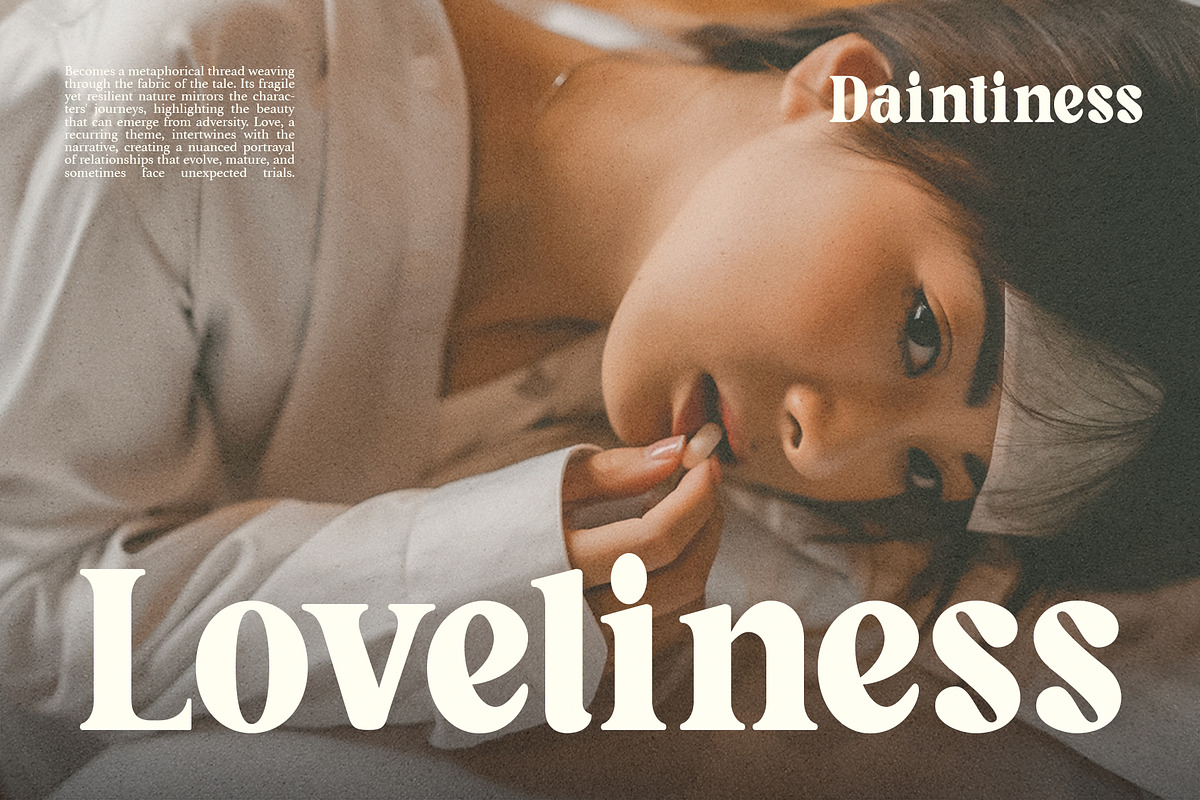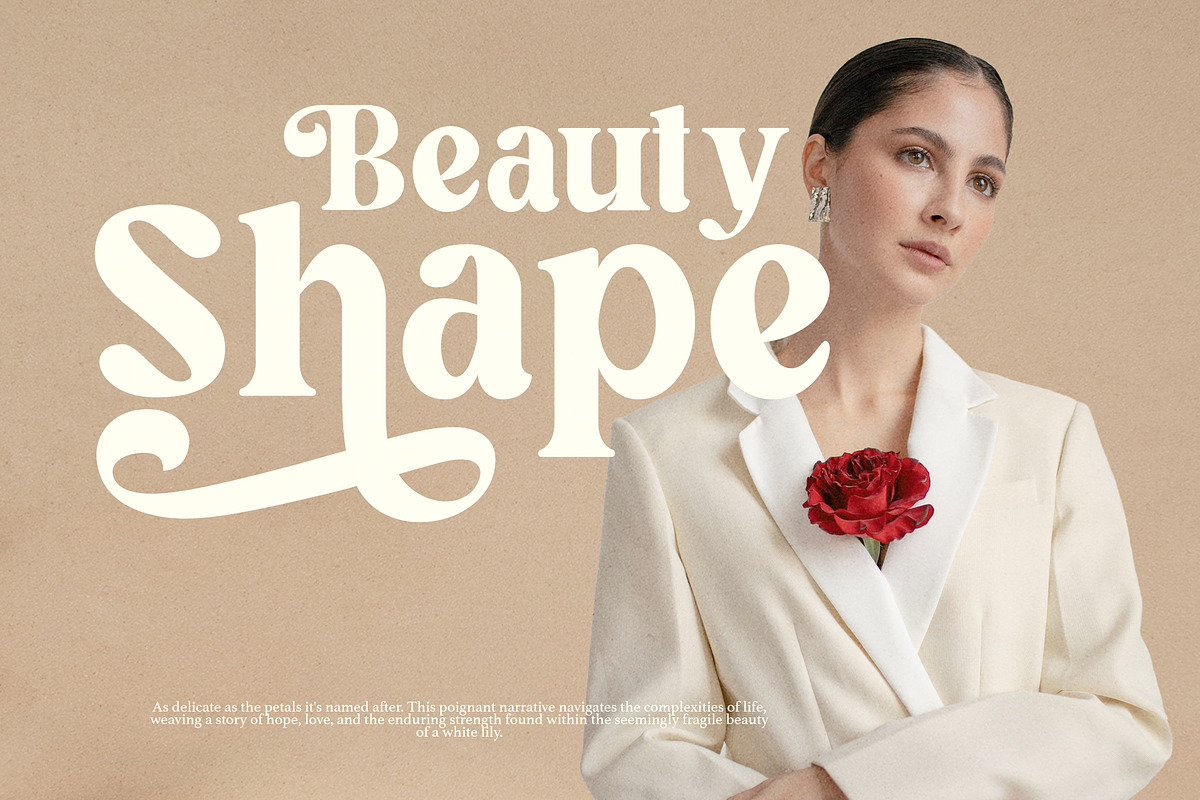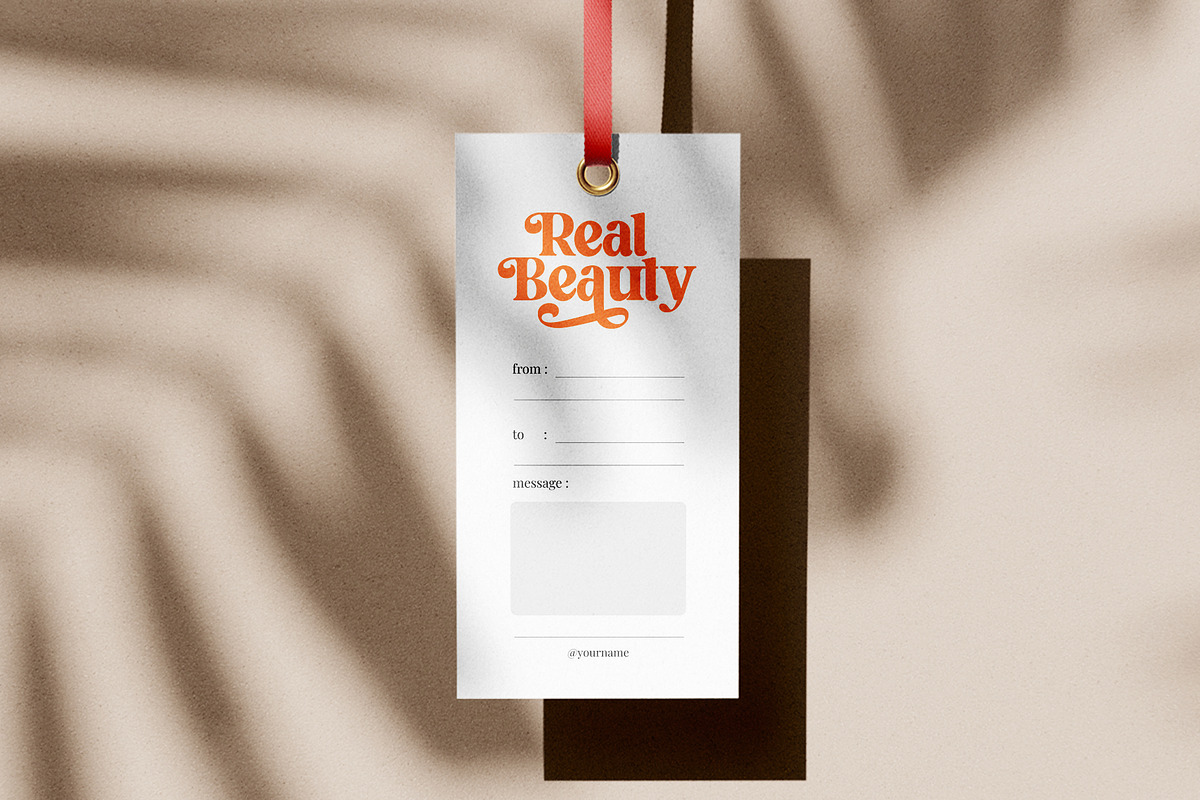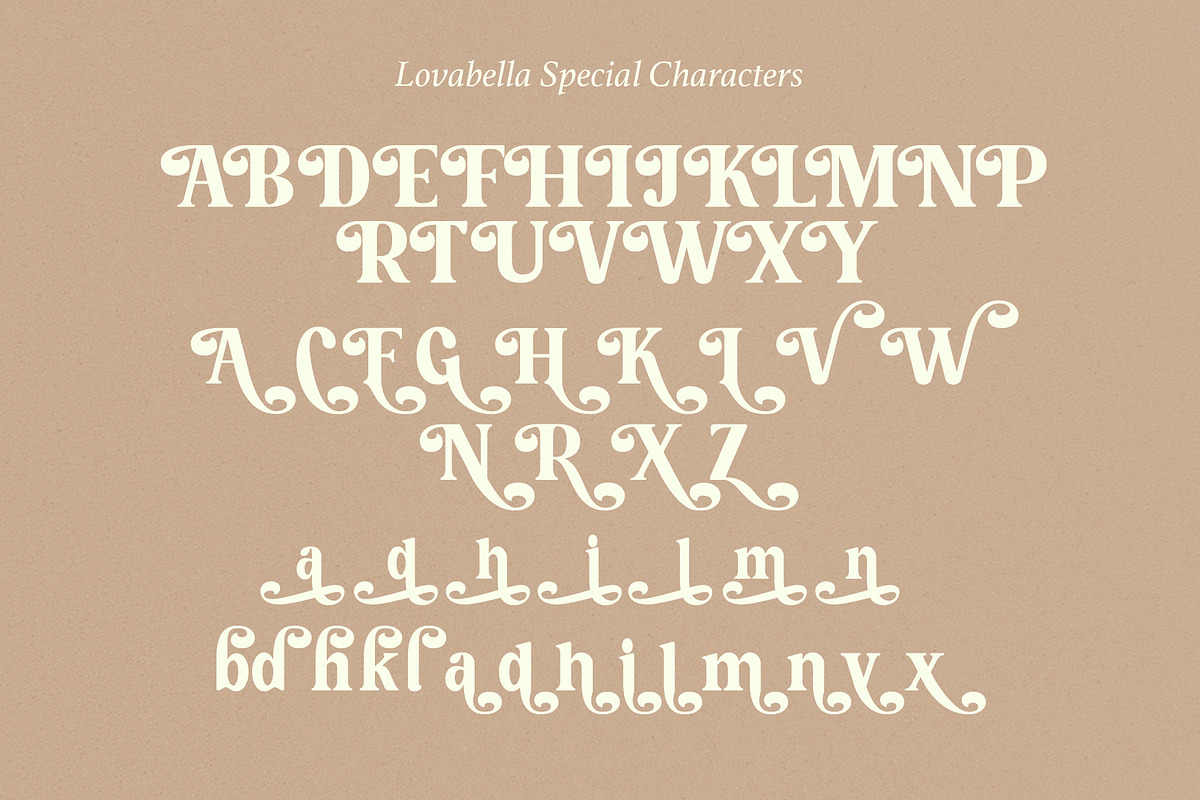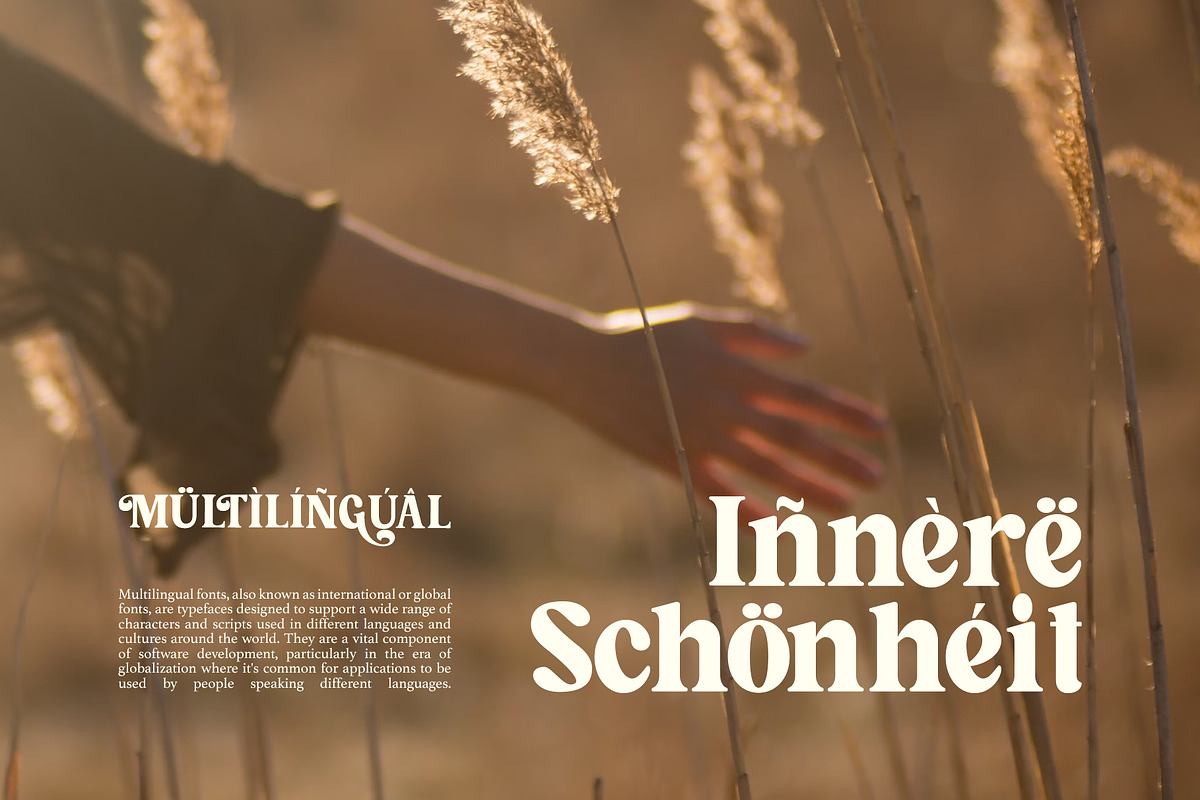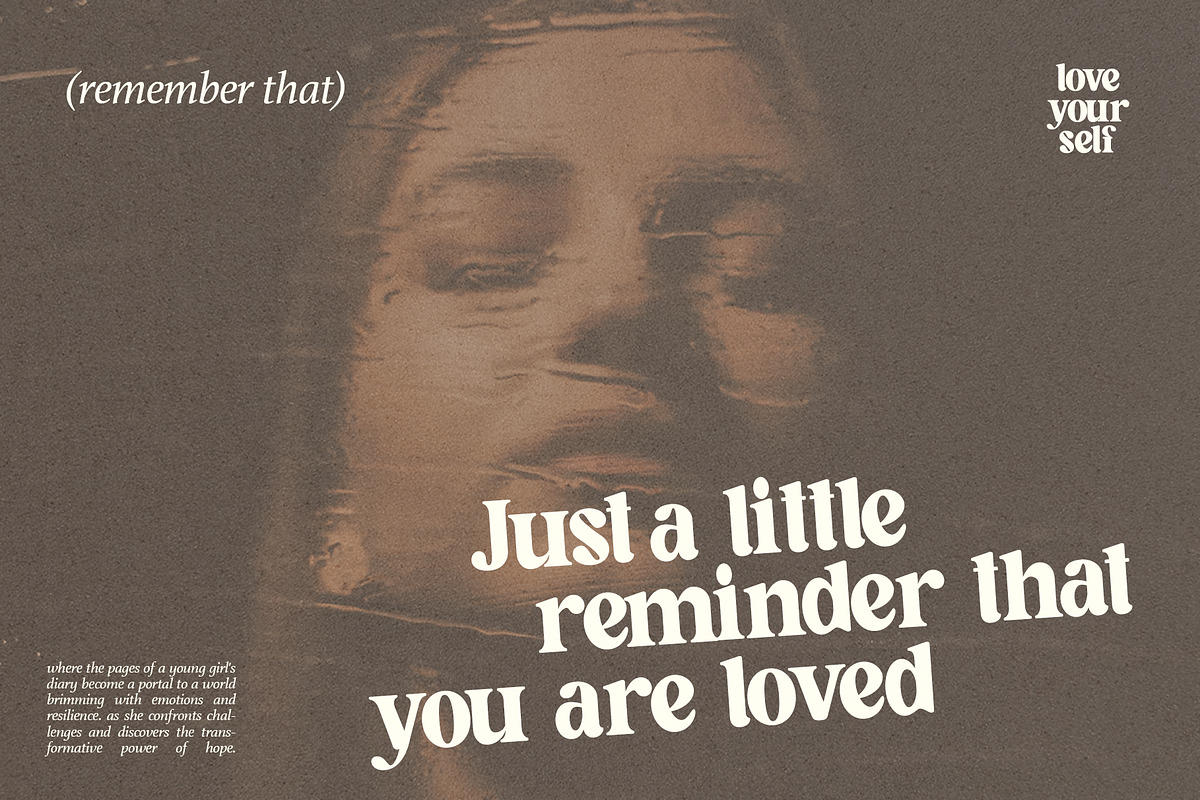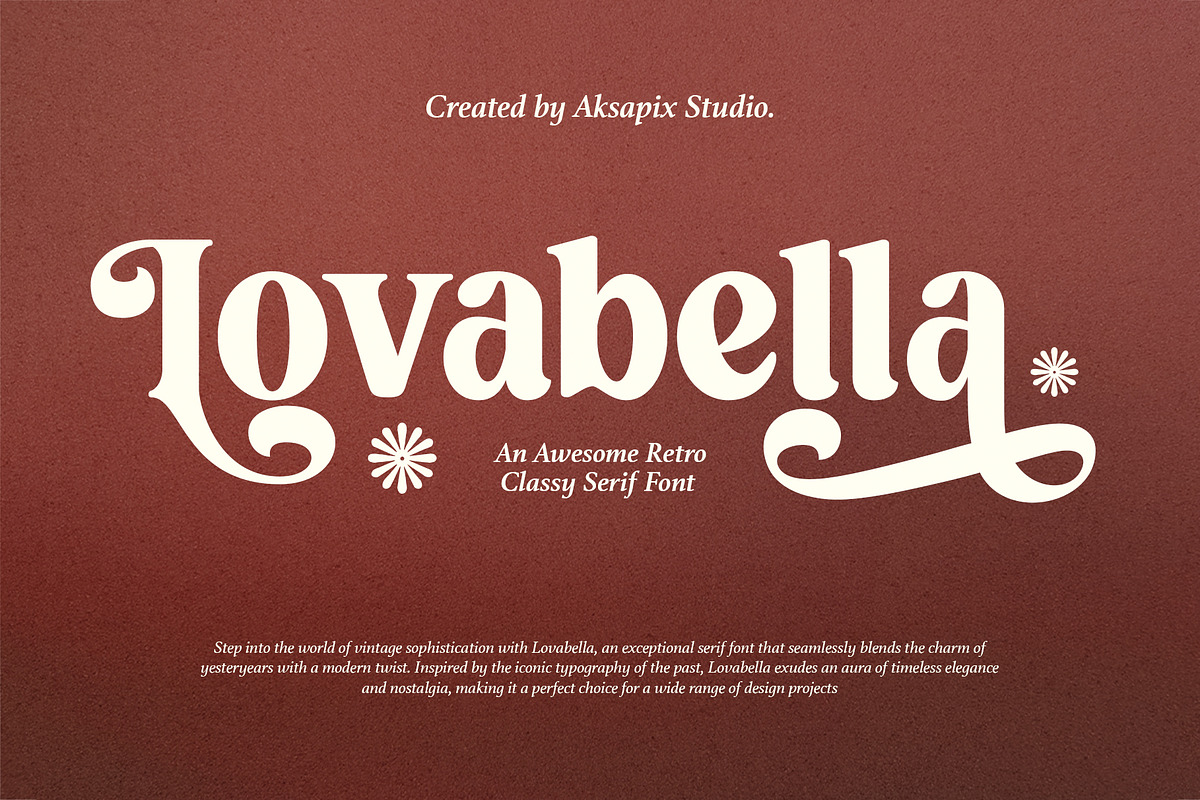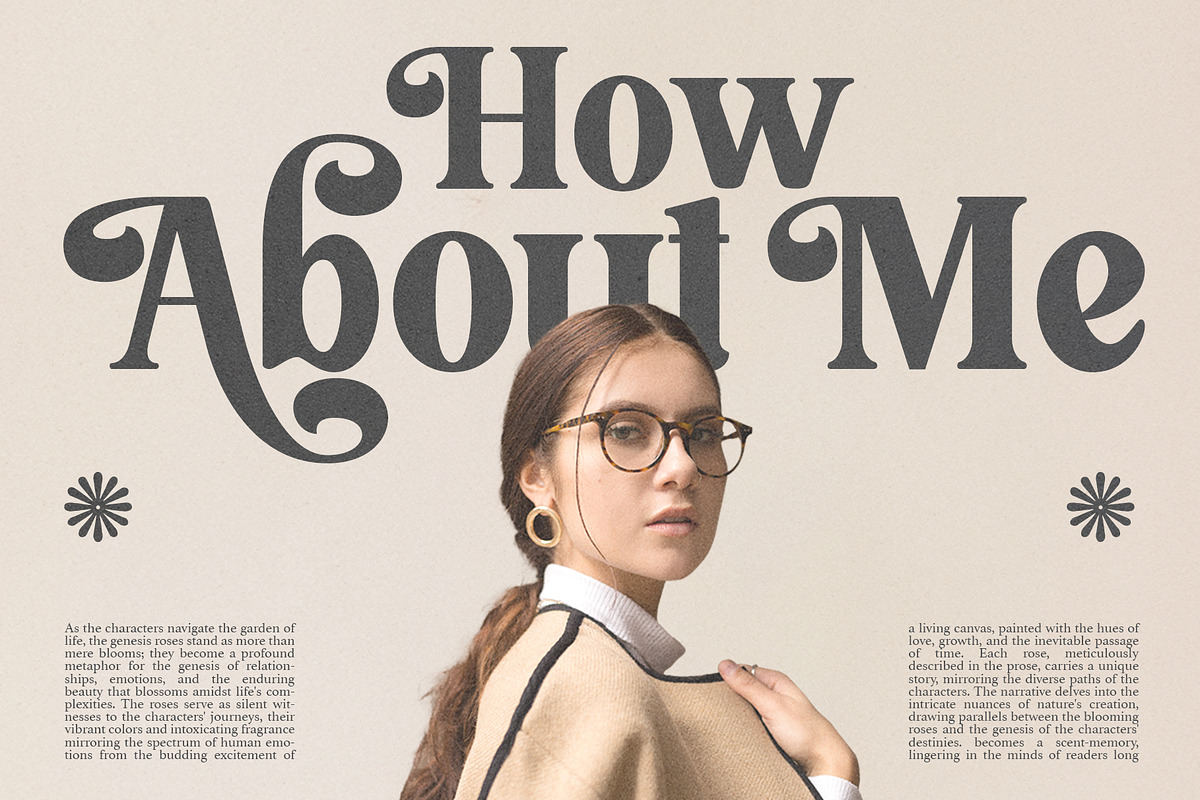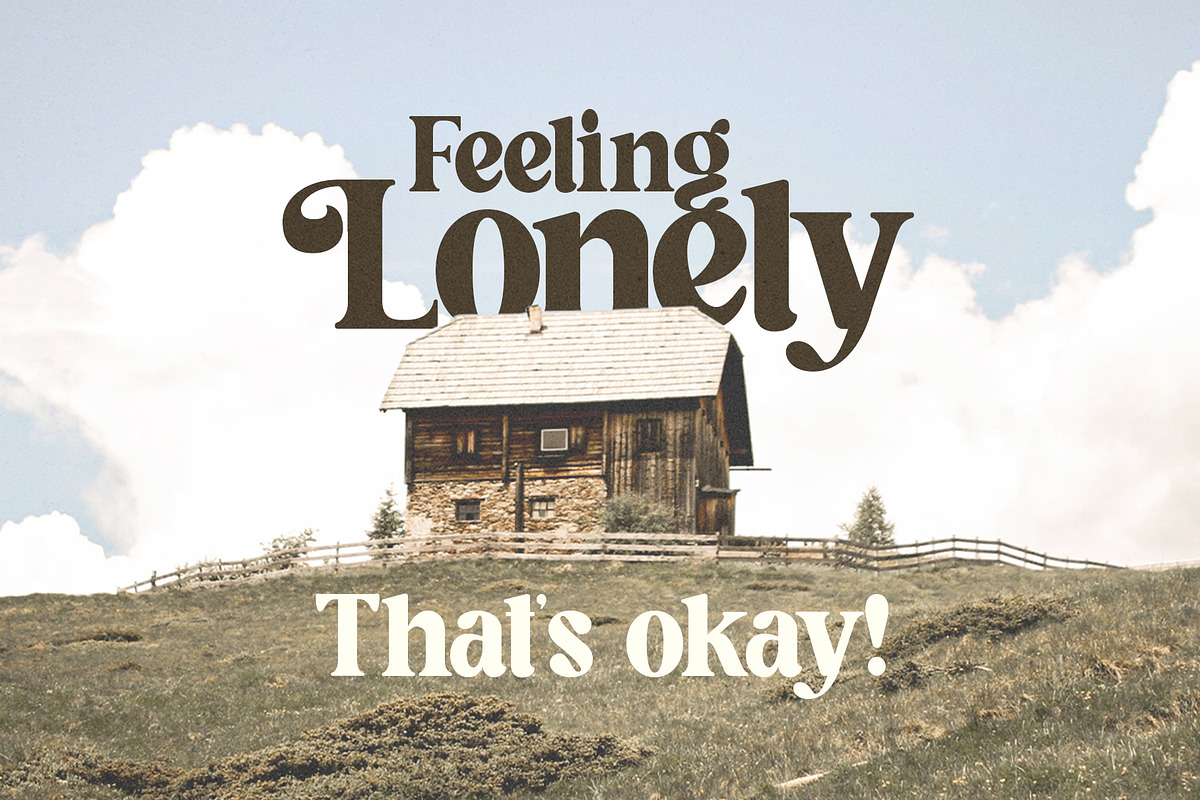
Lovabella - Retro Classy Serif Font
Introducing Lovabella - Retro Classy Serif Font
Enter the world of vintage with Lovabella - a classy retro serif font that is elegant and charming. Inspired by iconic typography of the past, Lovabella adds a nostalgic touch to your designs.
Enhance your typographic style with Lovabella-style alternative characters, which add extra touch and variety to your text. Experiment with different letter combinations and style options to create unique and interesting compositions that reflect your personal style.
Whether you are designing branding materials, editorial layouts, invitations, or product packaging, Lovabella will help you produce stunning designs
Transport yourself to a bygone era full of elegance and beauty with Lovabella and let her retro charm elevate your designs to a new level of stylish beauty.